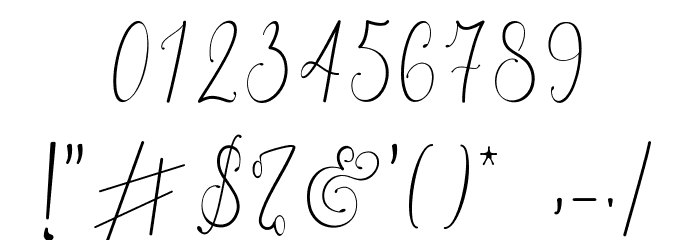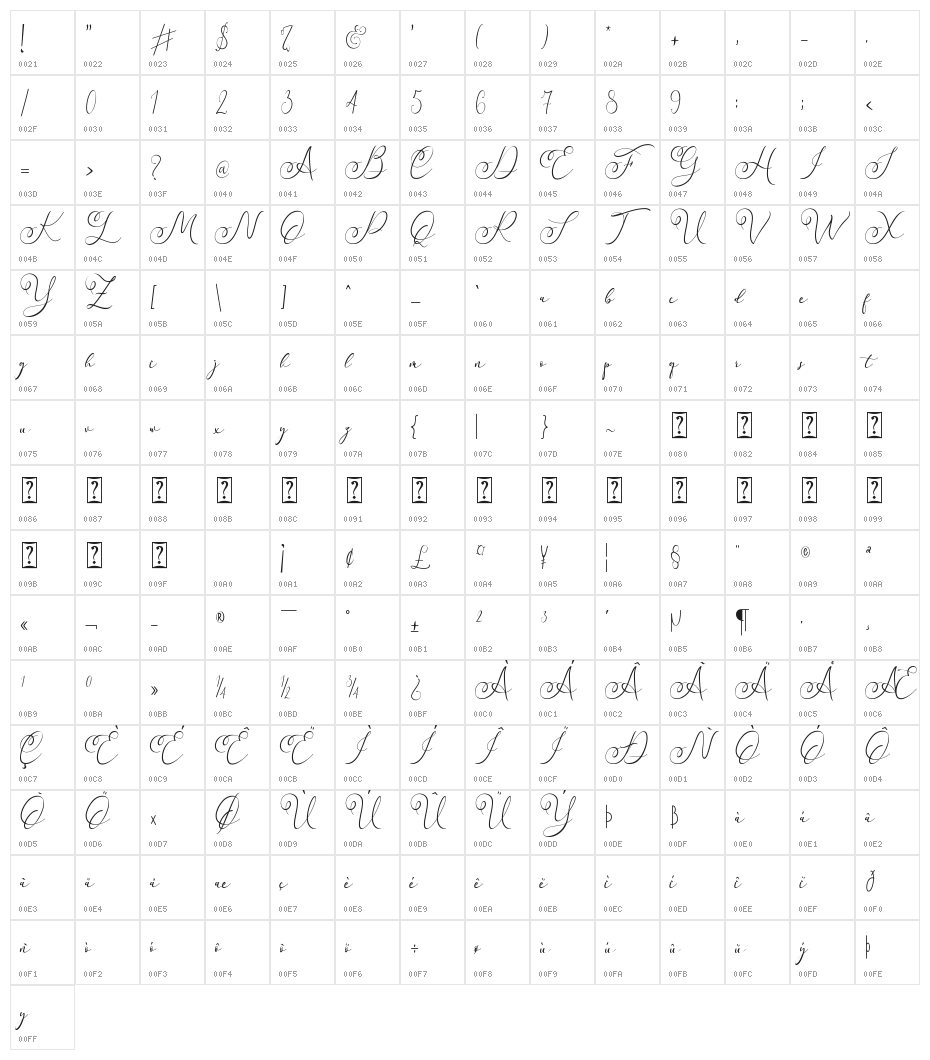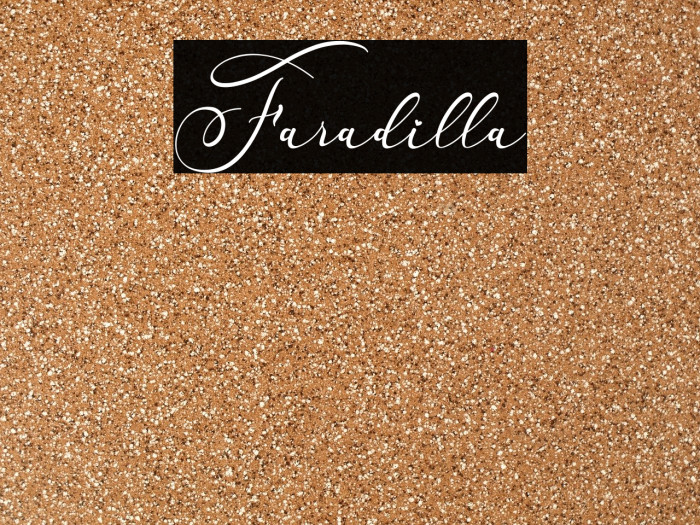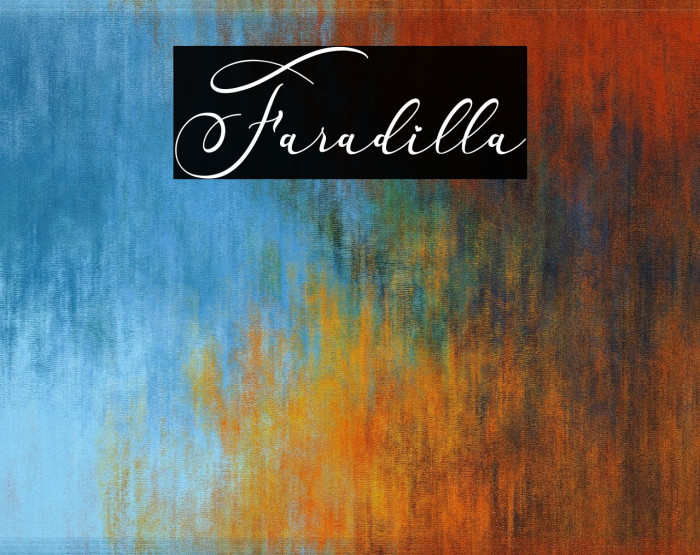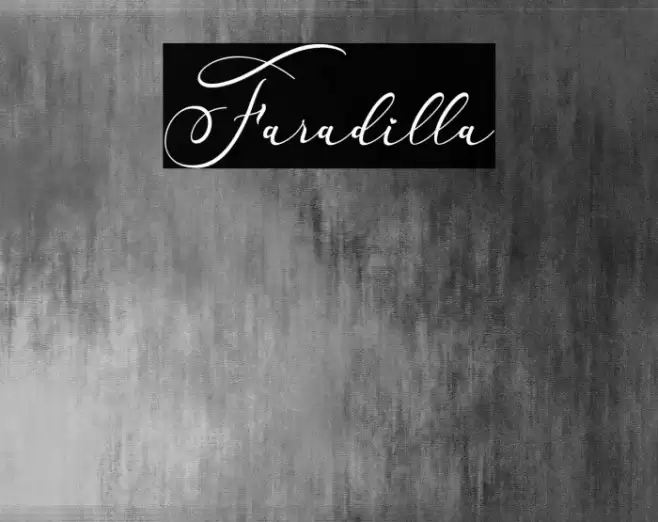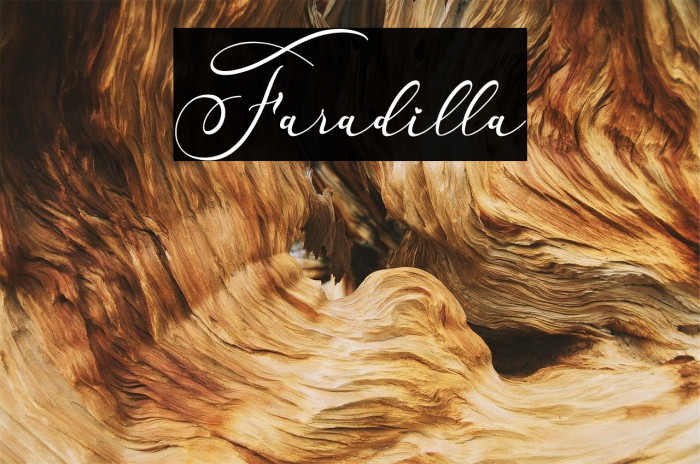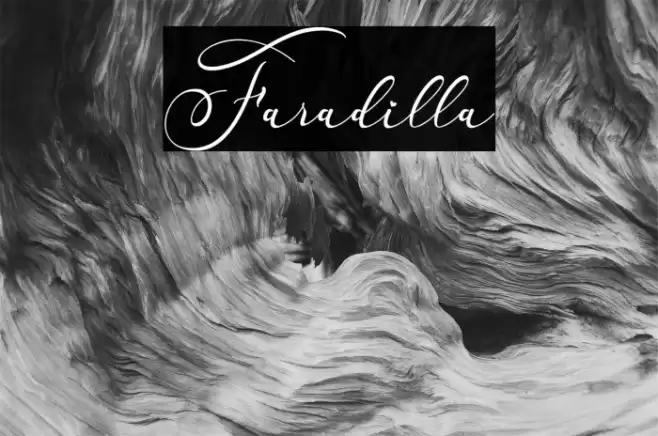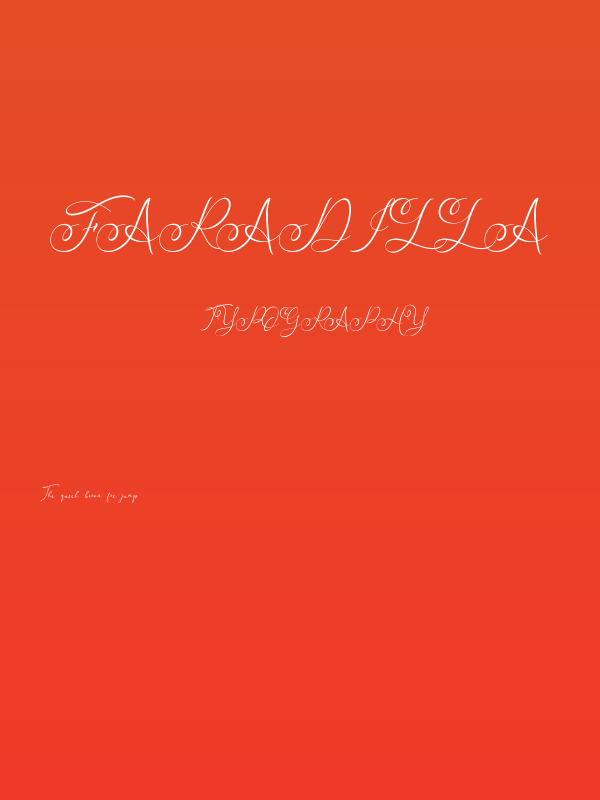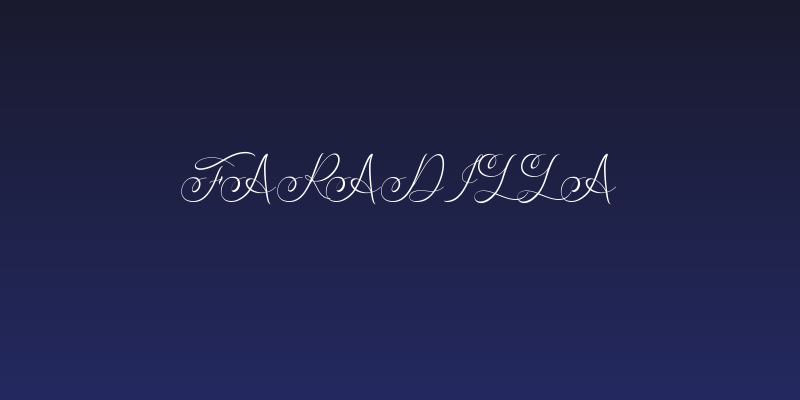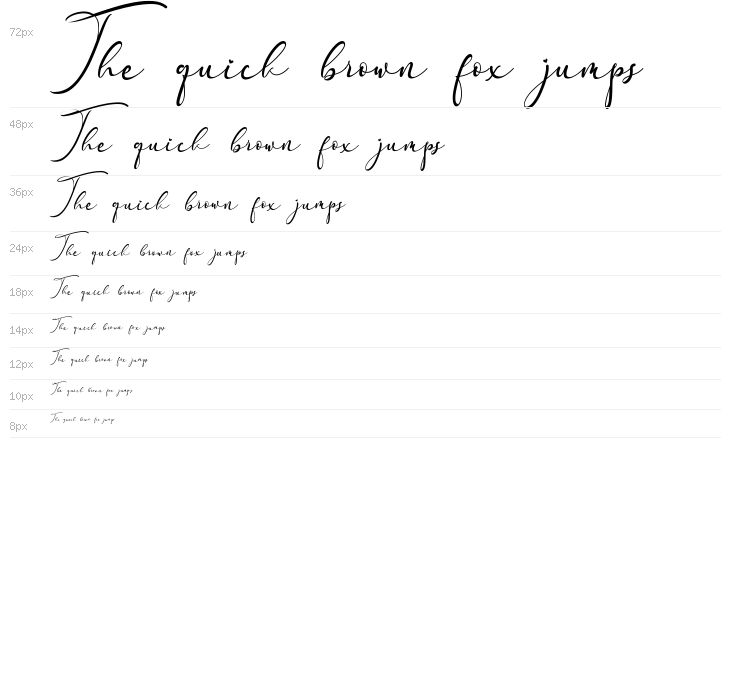
Faradilla Font
Faradilla Description
This elegant script font features a flowing, cursive style with intricate loops and swashes. The uppercase letters are ornate and decorative, while the lowercase letters maintain a graceful, connected appearance. The numbers and special characters complement the overall aesthetic with a similar fluidity. This font exudes sophistication and charm, making it ideal for formal invitations, branding, and artistic projects. Its delicate lines and high contrast between thick and thin strokes add to its refined look, capturing a sense of elegance and timeless beauty.
| Use Case | Invitations, Branding, Artistic Projects |
| Proposed Projects | Ideal for wedding invitations, luxury branding, artistic designs, and elegant stationery. |